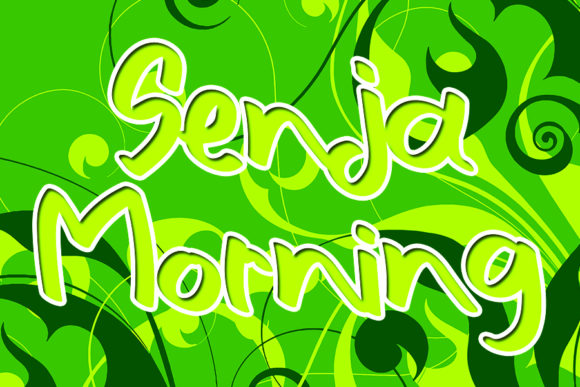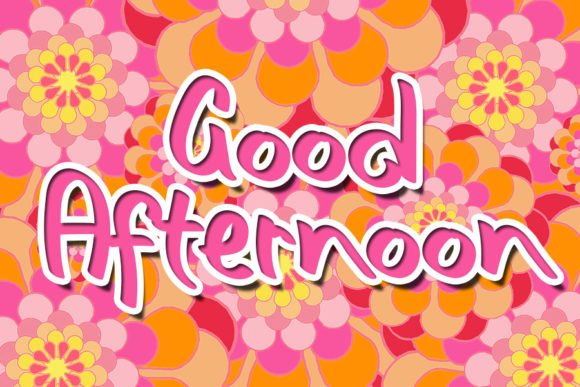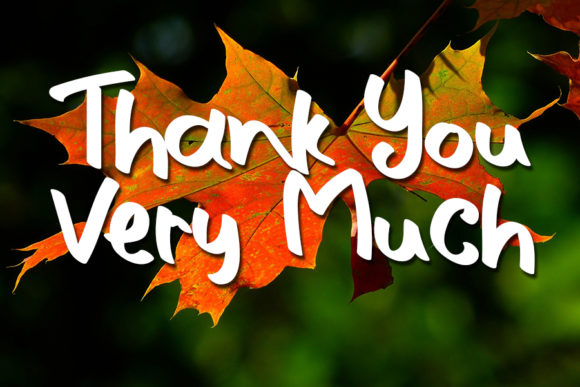
Introducing Farmhouse Flower Font: Elevate Your Designs with a Touch of Elegance
Are you a designer, crafter, or DIY enthusiast looking for a font that can add a touch of elegance and charm to your creations? Look no further than Farmhouse Flower Font, a beautiful handwritten font that is sure to become a valuable asset in your font library.
What is Farmhouse Flower Font?
Farmhouse Flower Font is a neat and beautiful handwritten font that is perfect for a wide range of design projects. Its elegant and flowing script is reminiscent of traditional farmhouse signs and decorations, but with a modern twist that makes it versatile and easy to use.
Key Features of Farmhouse Flower Font
- Handwritten script: Farmhouse Flower Font features a beautiful handwritten script that is both elegant and charming.
- Neat and legible: Unlike some handwritten fonts, Farmhouse Flower Font is neat and legible, making it perfect for use in a wide range of design projects.
- Versatile: This font is suitable for a wide range of topics and themes, from rustic and country to modern and sophisticated.
- Easily customizable: Farmhouse Flower Font is easy to customize, allowing you to adjust the font to suit your design needs.
How to Use Farmhouse Flower Font
Farmhouse Flower Font is perfect for a wide range of design projects, including:
- Signs and posters: Use Farmhouse Flower Font to create beautiful signs and posters for your home, business, or events.
- Invitations and cards: Add a touch of elegance to your invitations and cards with Farmhouse Flower Font.
- Branding and packaging: Use Farmhouse Flower Font to create a unique and memorable brand identity for your business.
- DIY projects: Farmhouse Flower Font is perfect for DIY enthusiasts who want to add a personal touch to their projects.
Benefits of Using Farmhouse Flower Font
So why choose Farmhouse Flower Font for your design projects? Here are just a few benefits:
- Unique and distinctive: Farmhouse Flower Font is a unique and distinctive font that will help your designs stand out from the crowd.
- Elegant and sophisticated: This font adds a touch of elegance and sophistication to any design project.
- Easy to use: Farmhouse Flower Font is easy to use and customize, making it perfect for designers of all levels.
- Versatile: This font is suitable for a wide range of design projects and themes.
Tips for Getting the Most Out of Farmhouse Flower Font
Here are a few tips for getting the most out of Farmhouse Flower Font:
- Experiment with different colors: Try pairing Farmhouse Flower Font with different colors and textures to create a unique and eye-catching design.
- Use it with other fonts: Combine Farmhouse Flower Font with other fonts to create a unique and interesting contrast.
- Play with font sizes: Experiment with different font sizes to create visual interest and hierarchy in your design.
Farmhouse Flower Font is a beautiful and versatile handwritten font that is perfect for designers, crafters, and DIY enthusiasts. Its elegant and flowing script makes it suitable for a wide range of design projects, from signs and posters to branding and packaging. With its ease of use and customization options, Farmhouse Flower Font is sure to become a valuable asset in your font library.